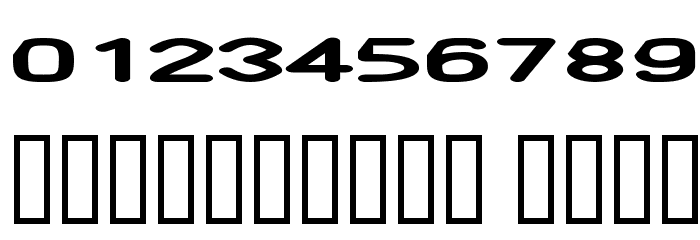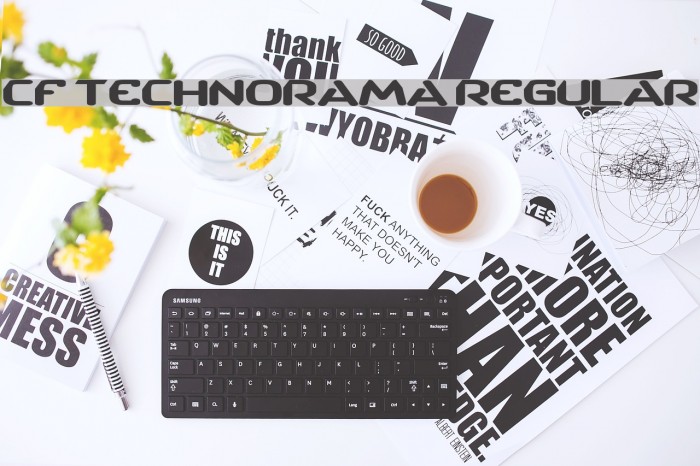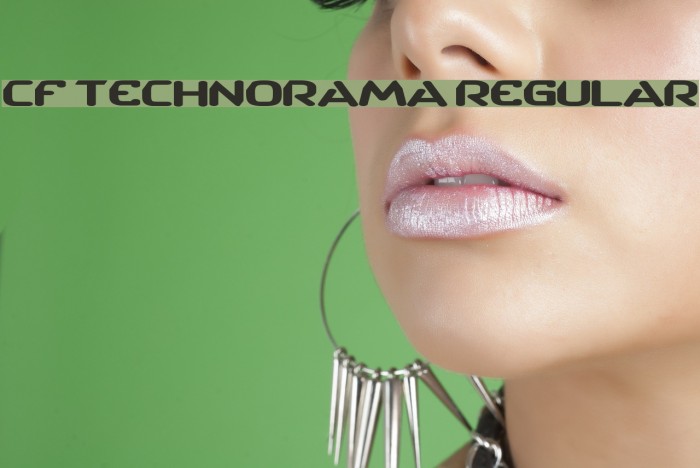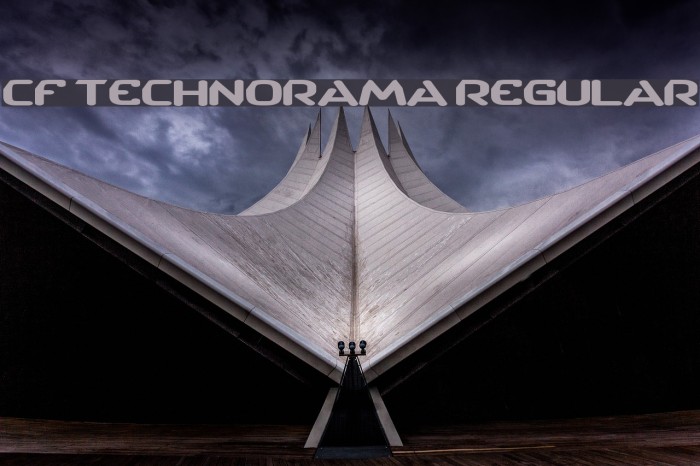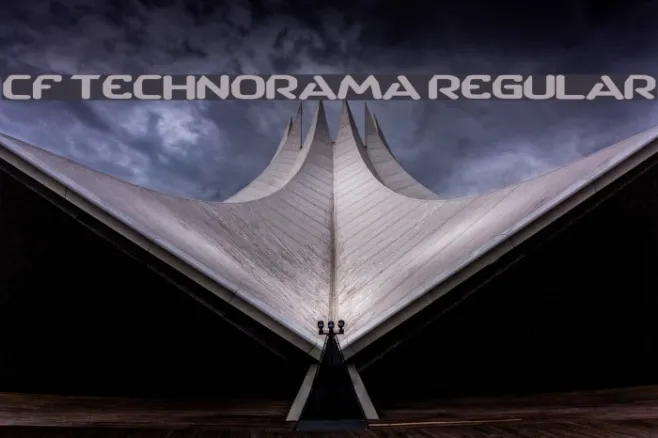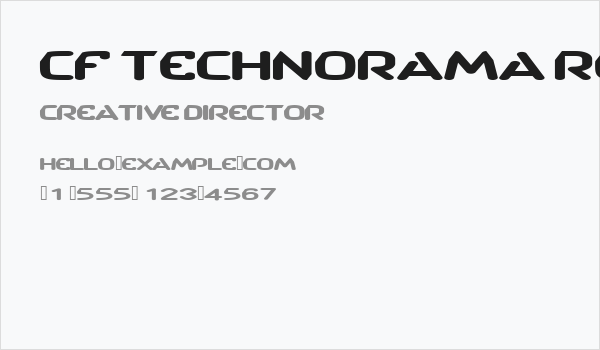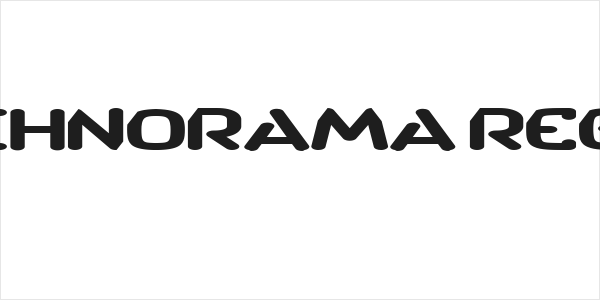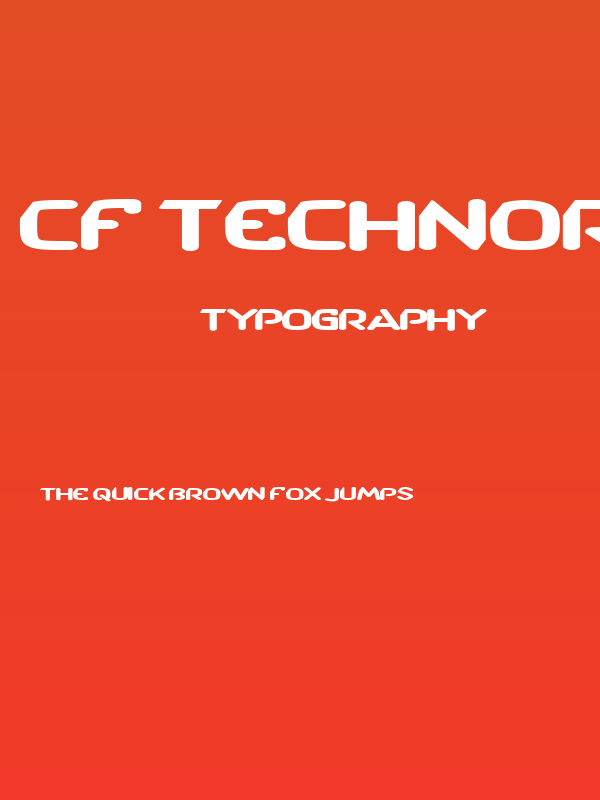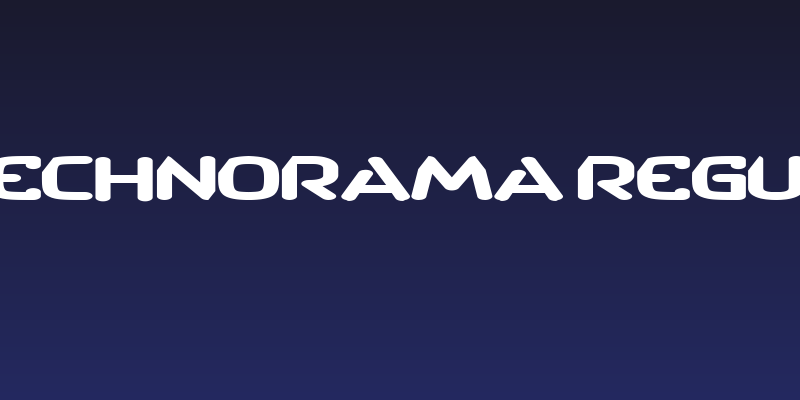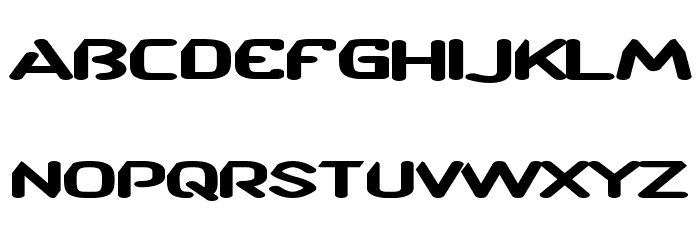
CF TechnoRama Regular Font
CF TechnoRama Regular Description
This font features a futuristic and techno-inspired design, characterized by its bold and geometric letterforms. The uppercase letters are distinct with sharp angles and a consistent stroke width, giving it a strong and modern appearance. The numbers follow the same design principles, ensuring uniformity across all characters. The special characters are stylized to match the overall aesthetic, making them suitable for digital and tech-themed projects. The font's design is clean and precise, making it ideal for headlines and display purposes where a modern and impactful look is desired.
| Proposed Projects | Ideal for technology branding, sci-fi movie posters, video game titles, and digital interfaces. |